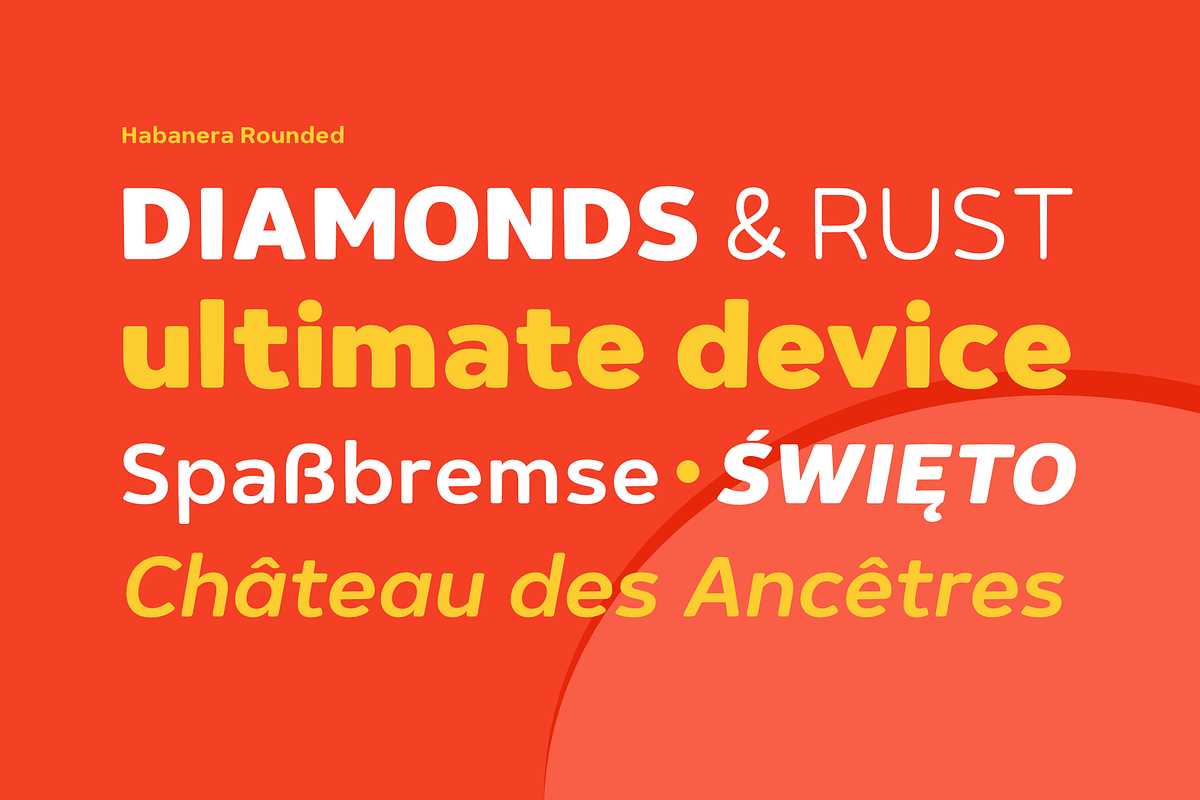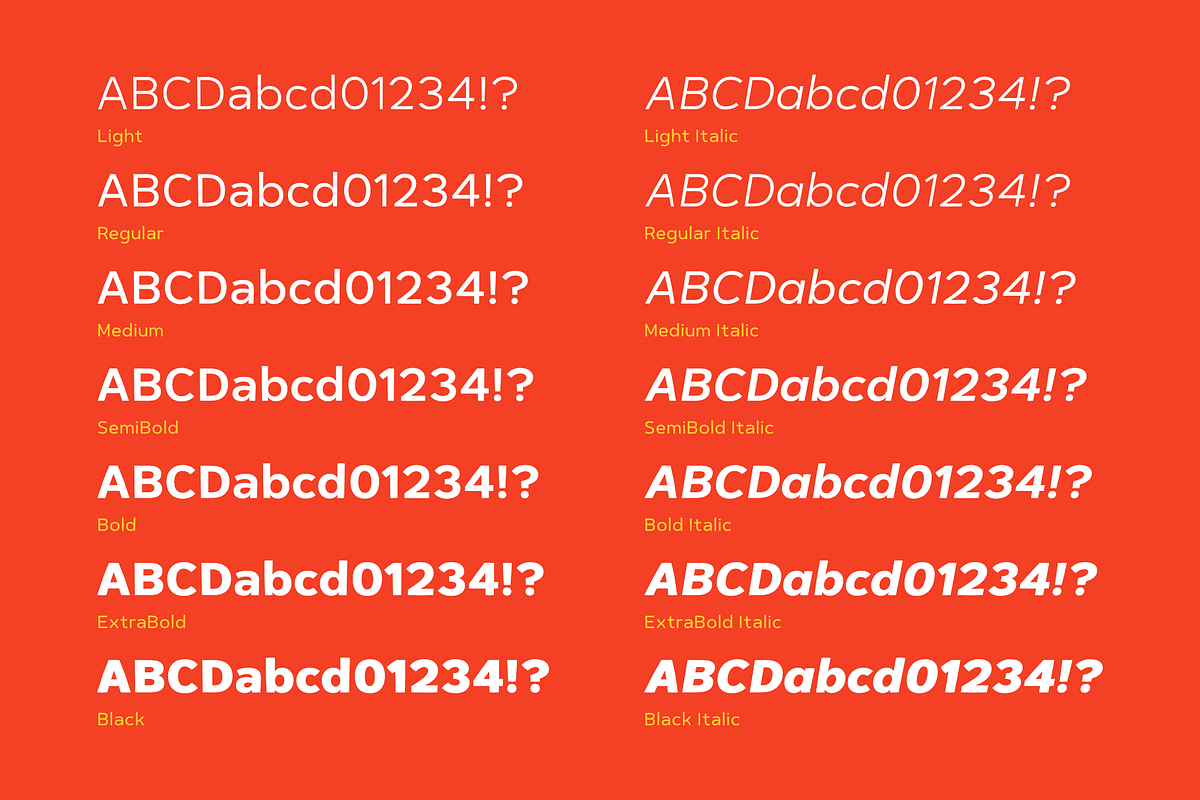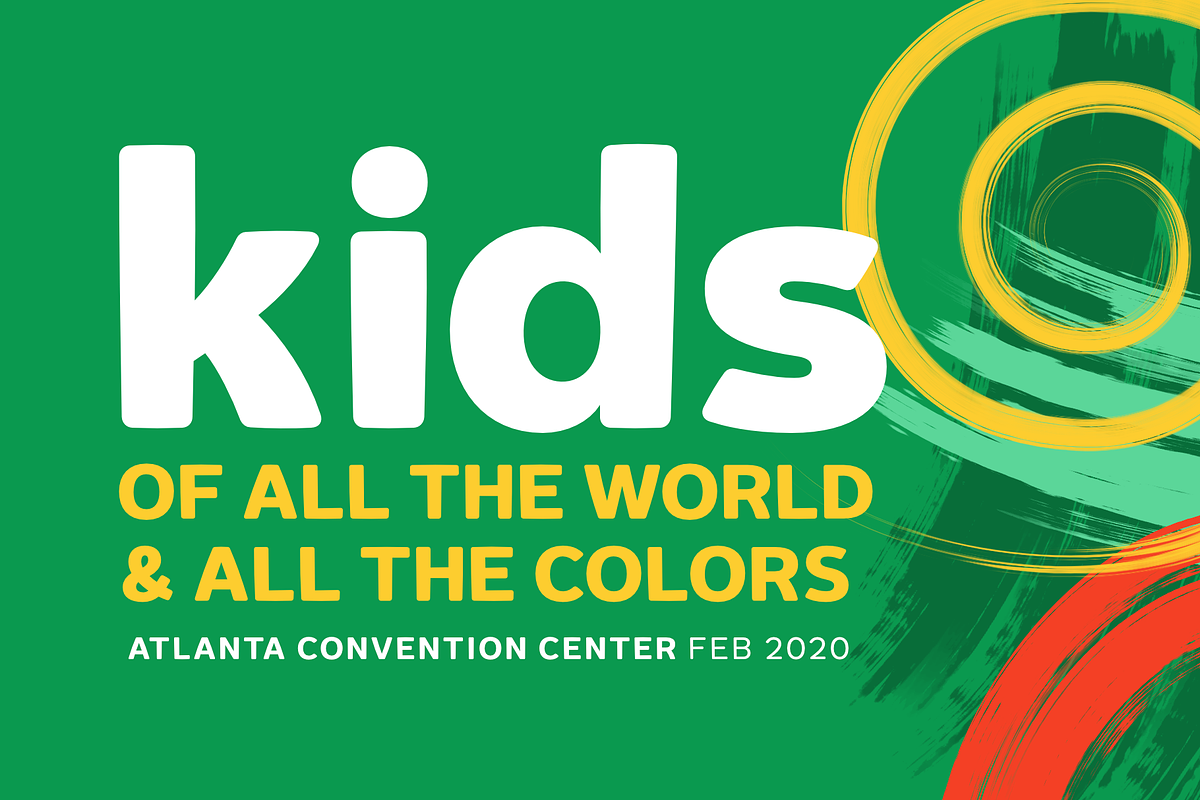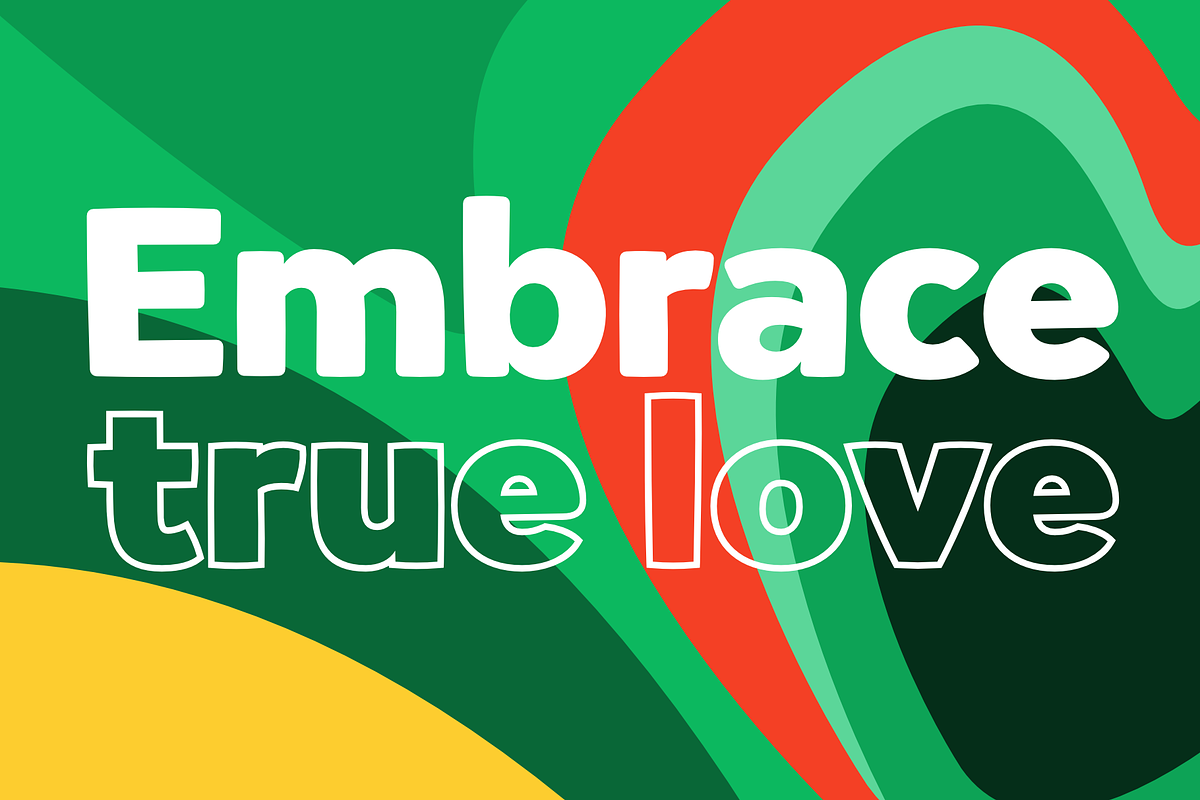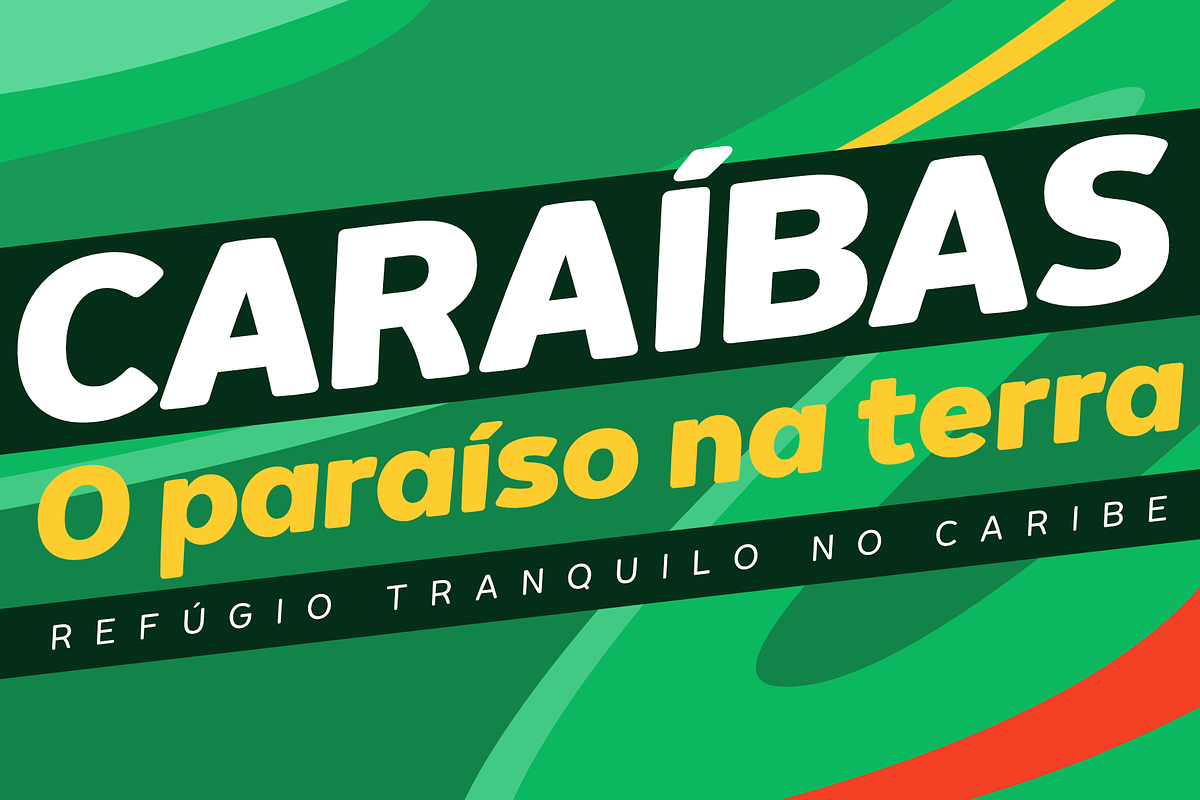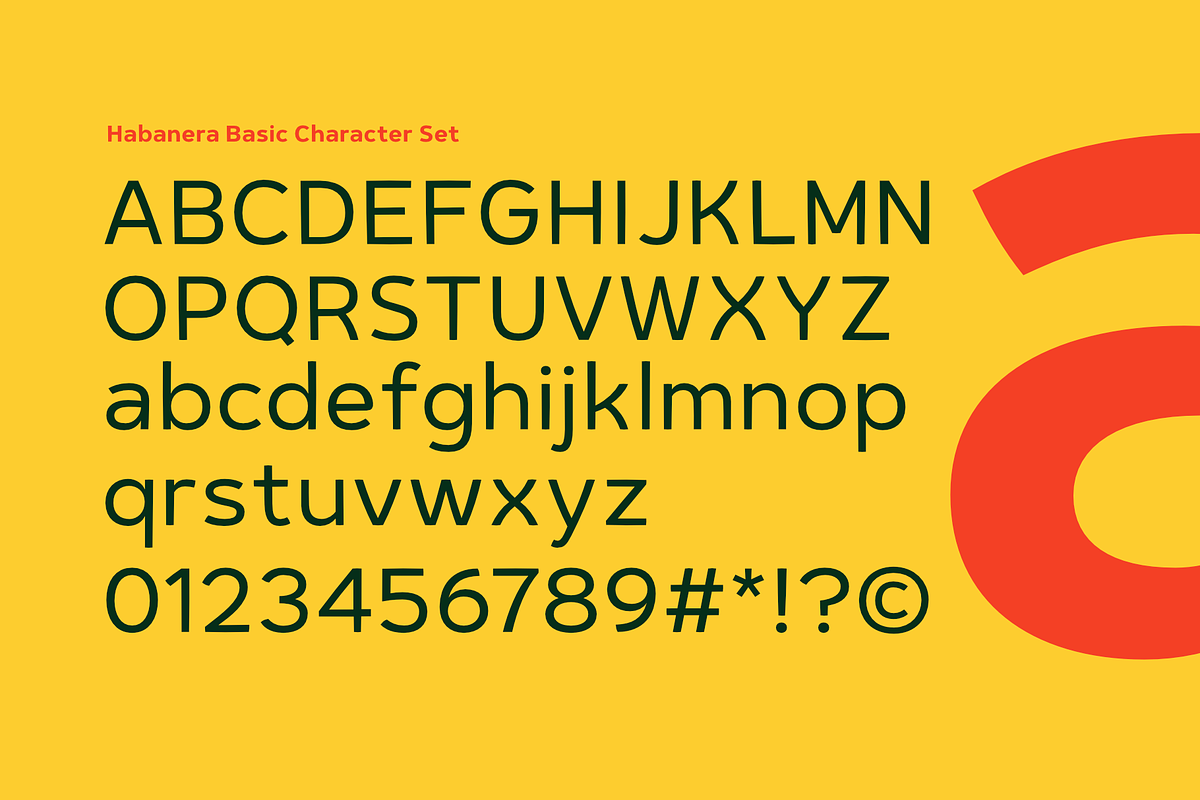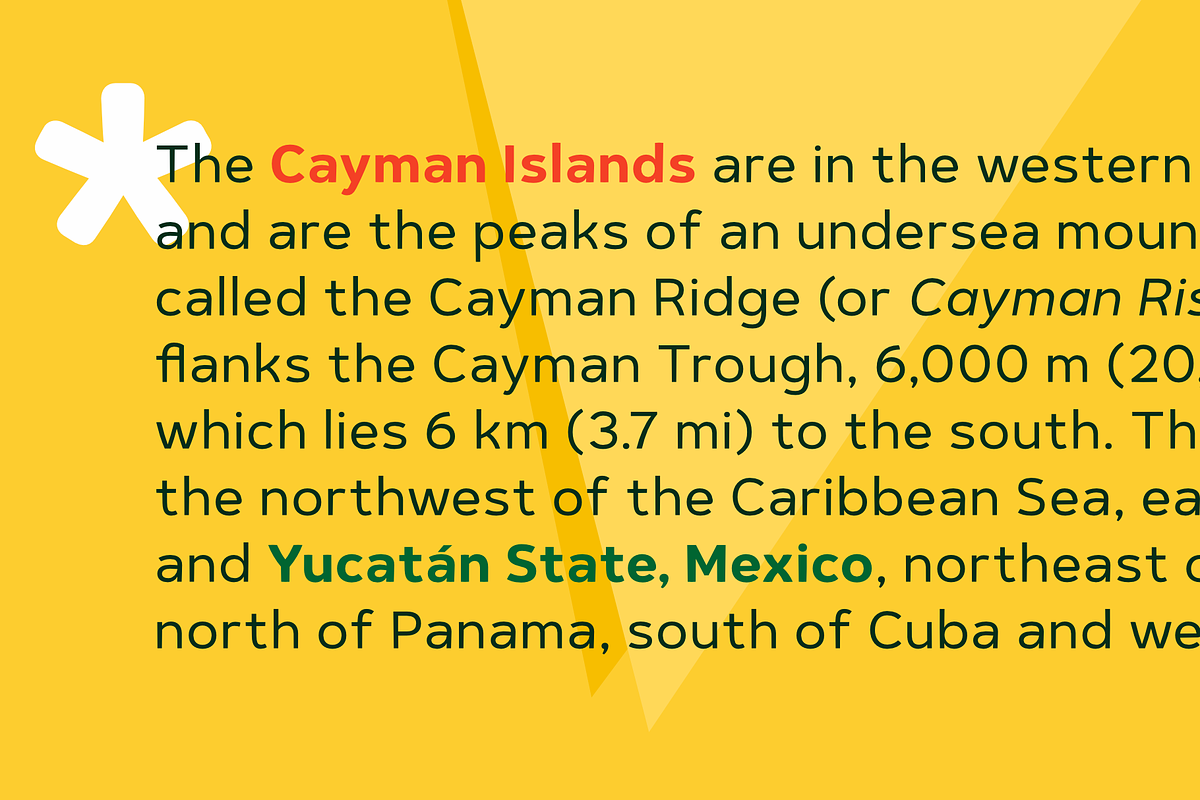
Habanera
Habanera's design is based on the idea of taking perfectionist geometric shapes and making them funky! With gentle tweaks here and there, the glyphs are deliberately designed to look more humane and fun. Same fonts are also presented with round corners, giving it an even more gentle look.
Latin poster design and graphic art was an inspiration to design Habanera, so it has Latin vibes all around it. The end result is a clean legible text font that can also work nicely as a display font for big, fun headlines. It has 7 weights with true italics in each normal and rounded set, also there are extra fonts with outlines, shadow and 3D styles to get even more funky. From designs for children to packaging, posters, mobile apps and games, it's perfectly suitable for any design wherever you need to brighten the mood.